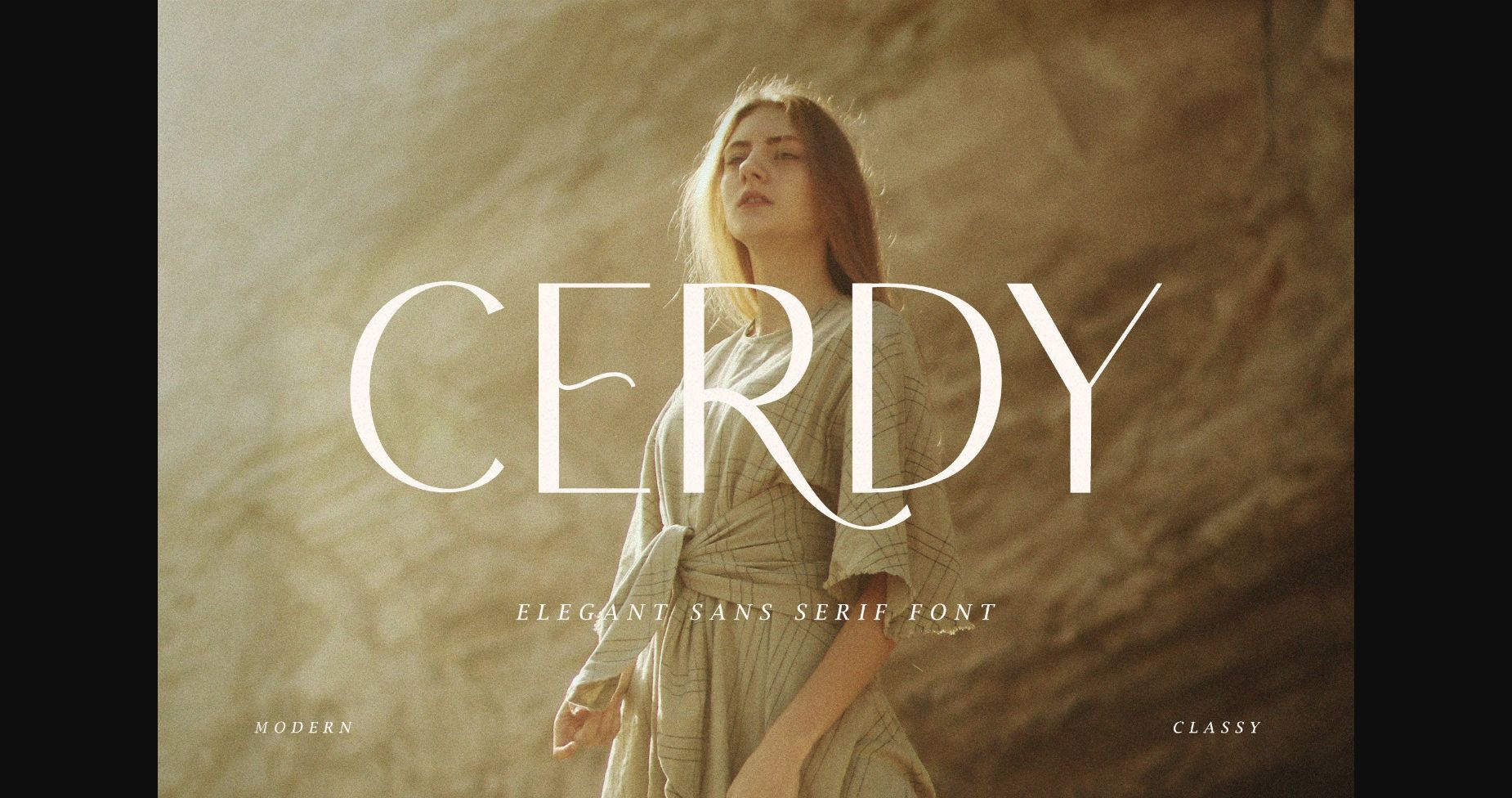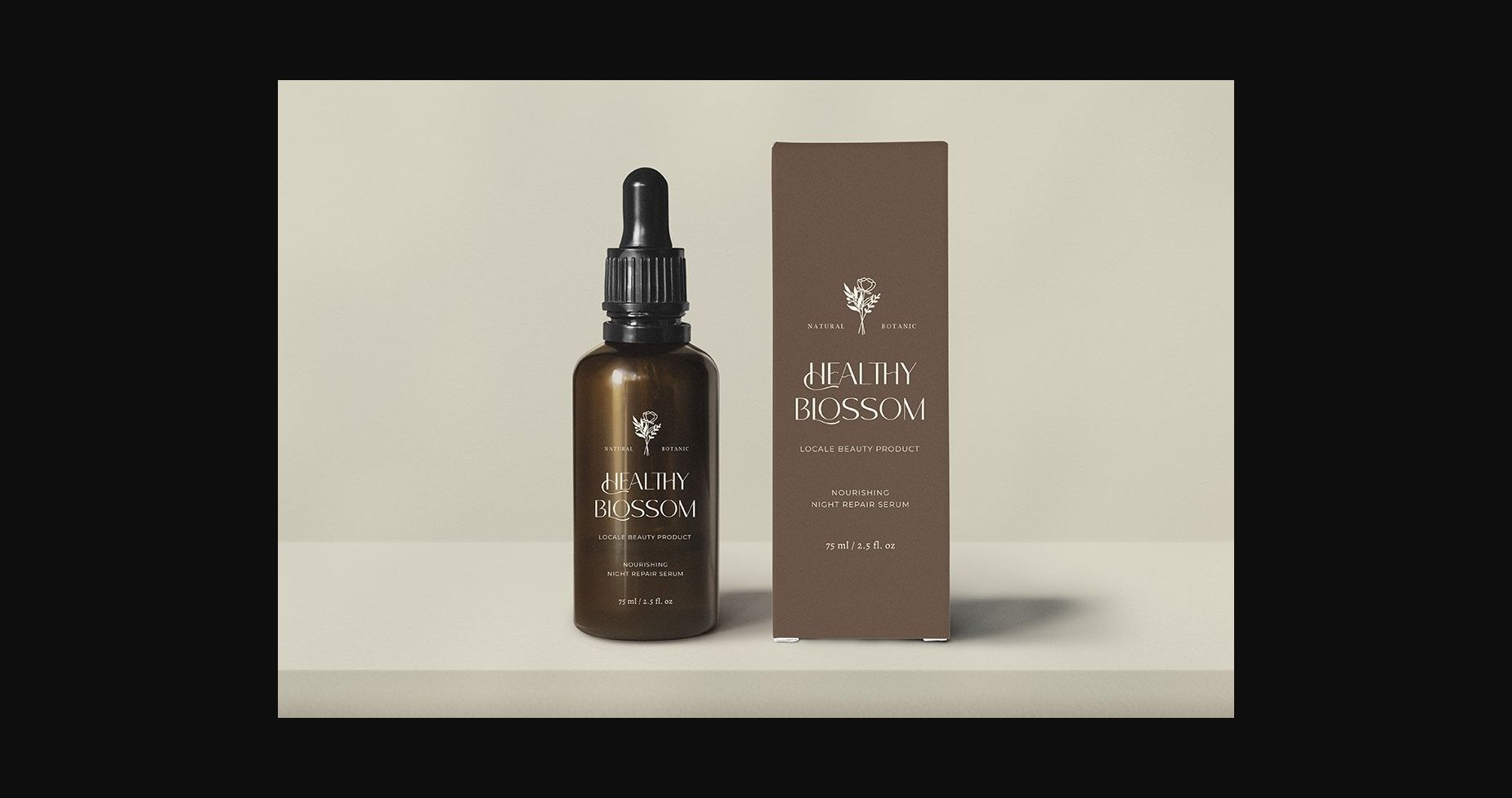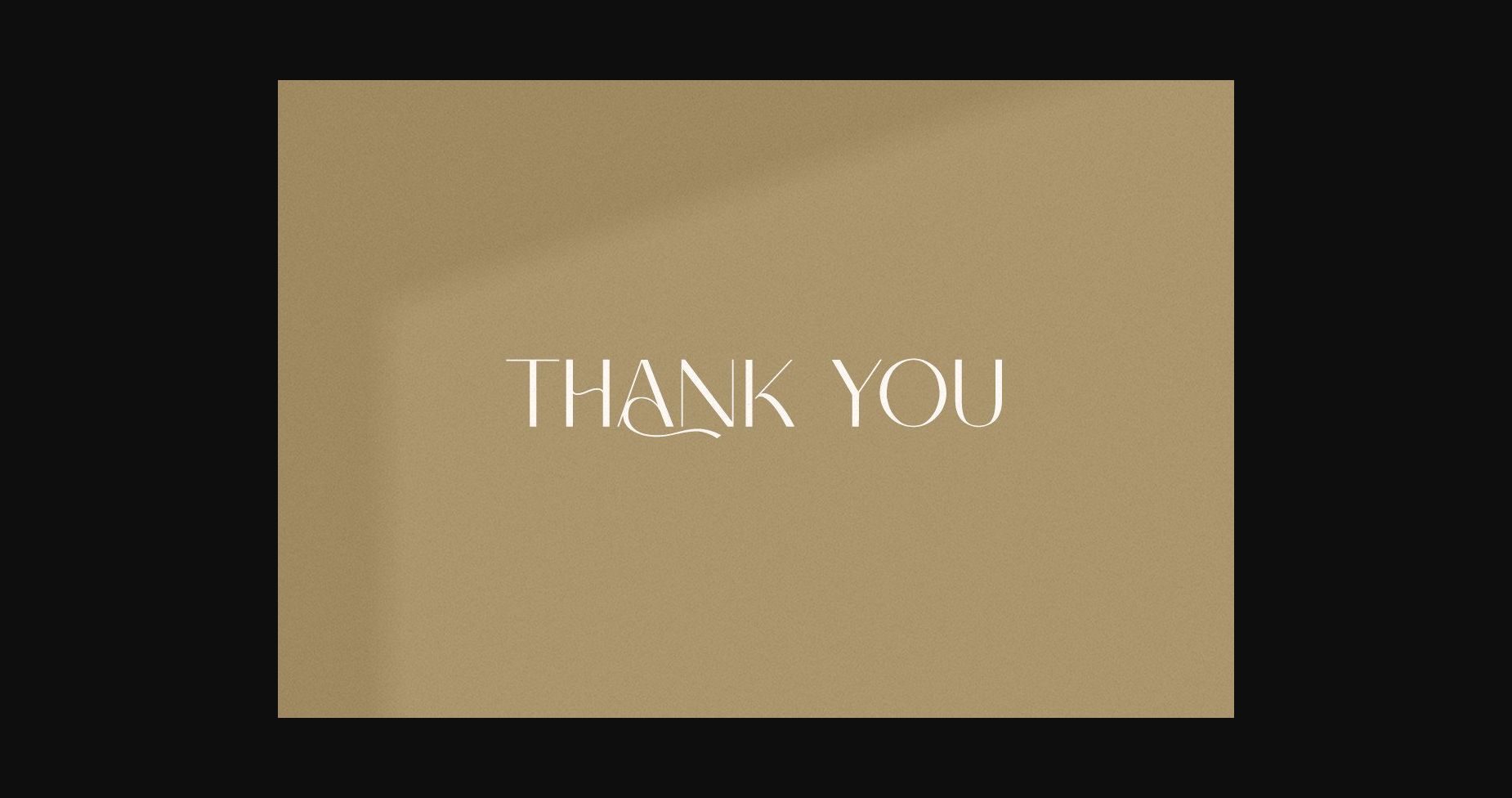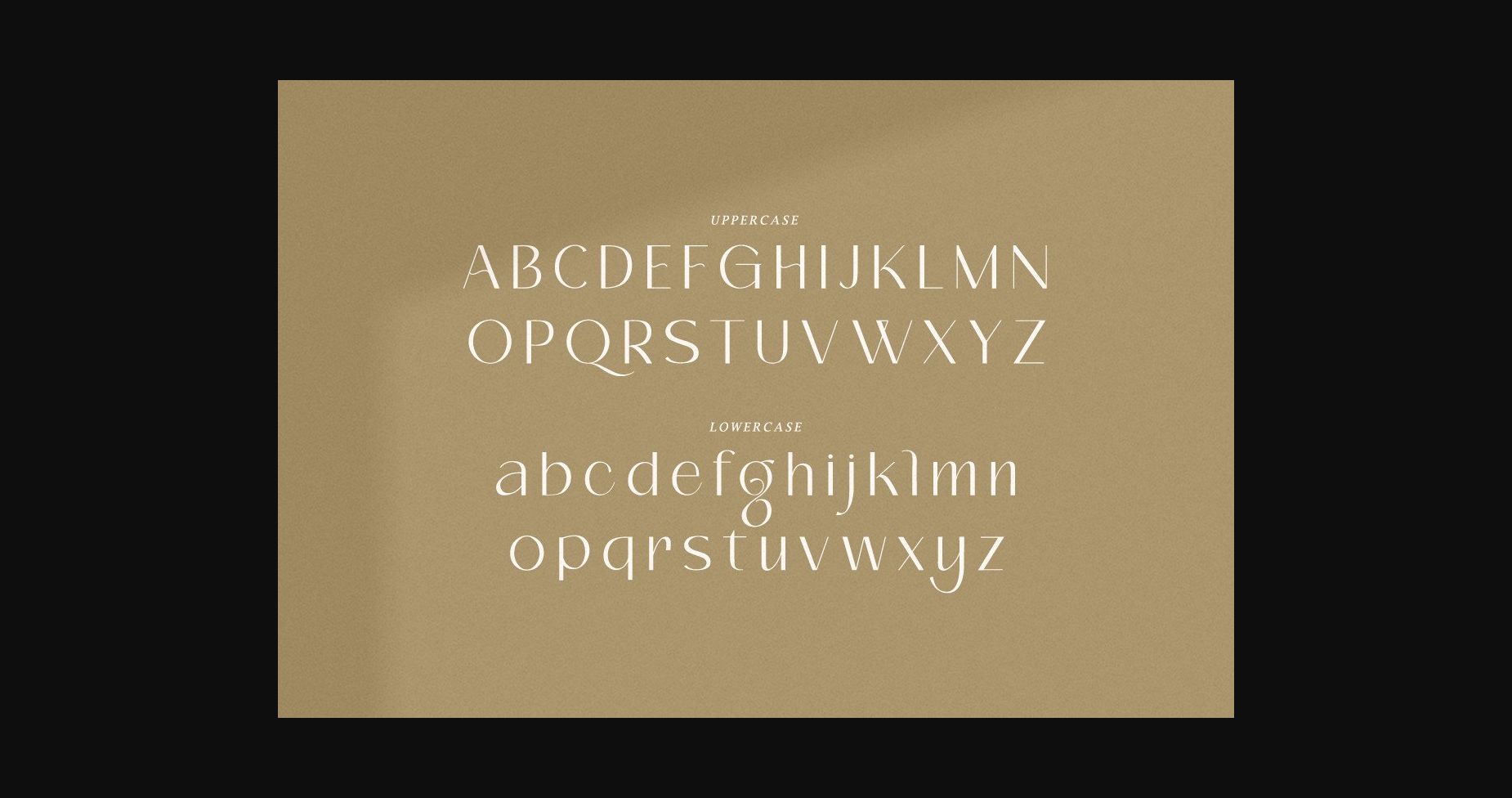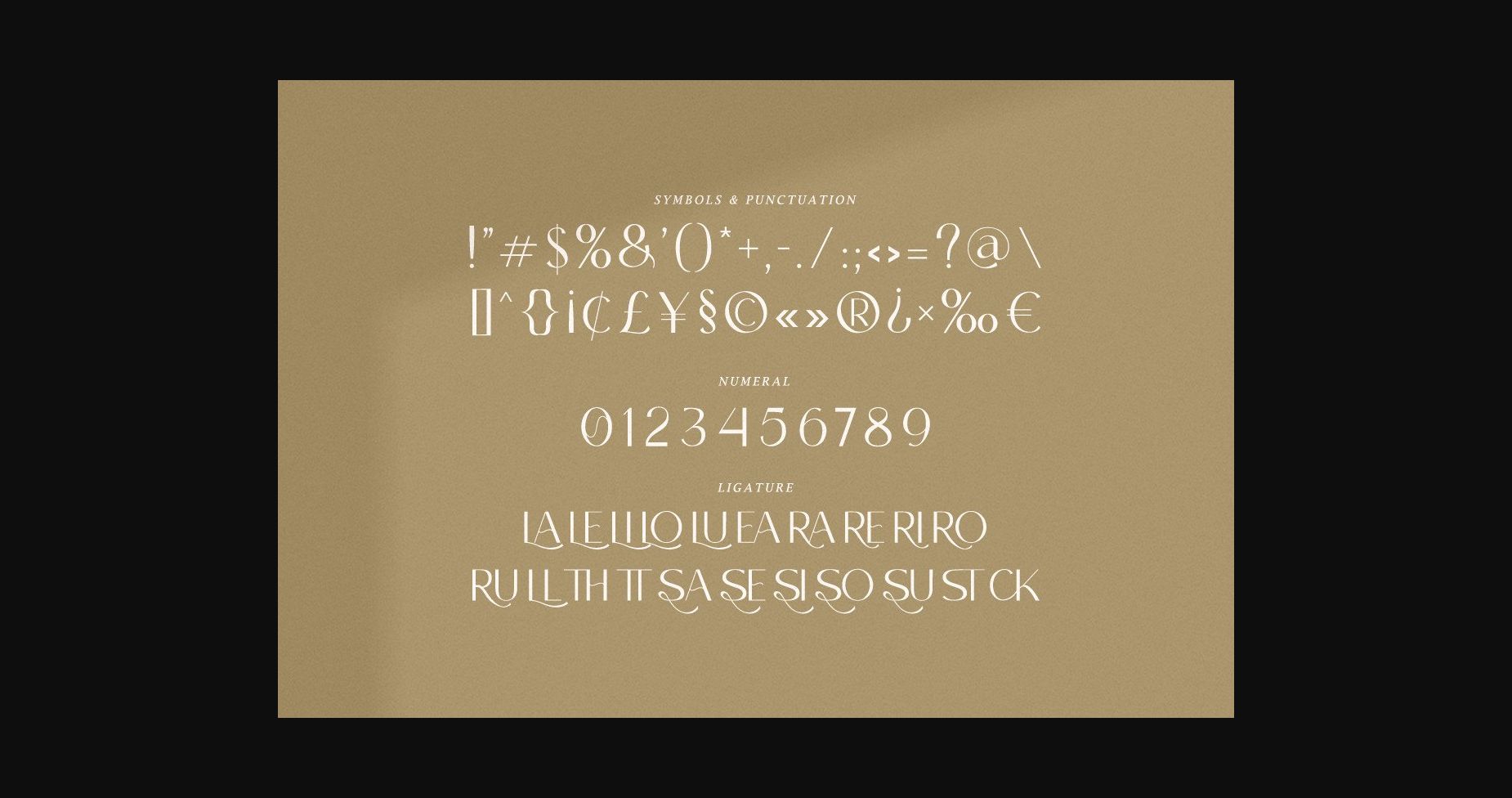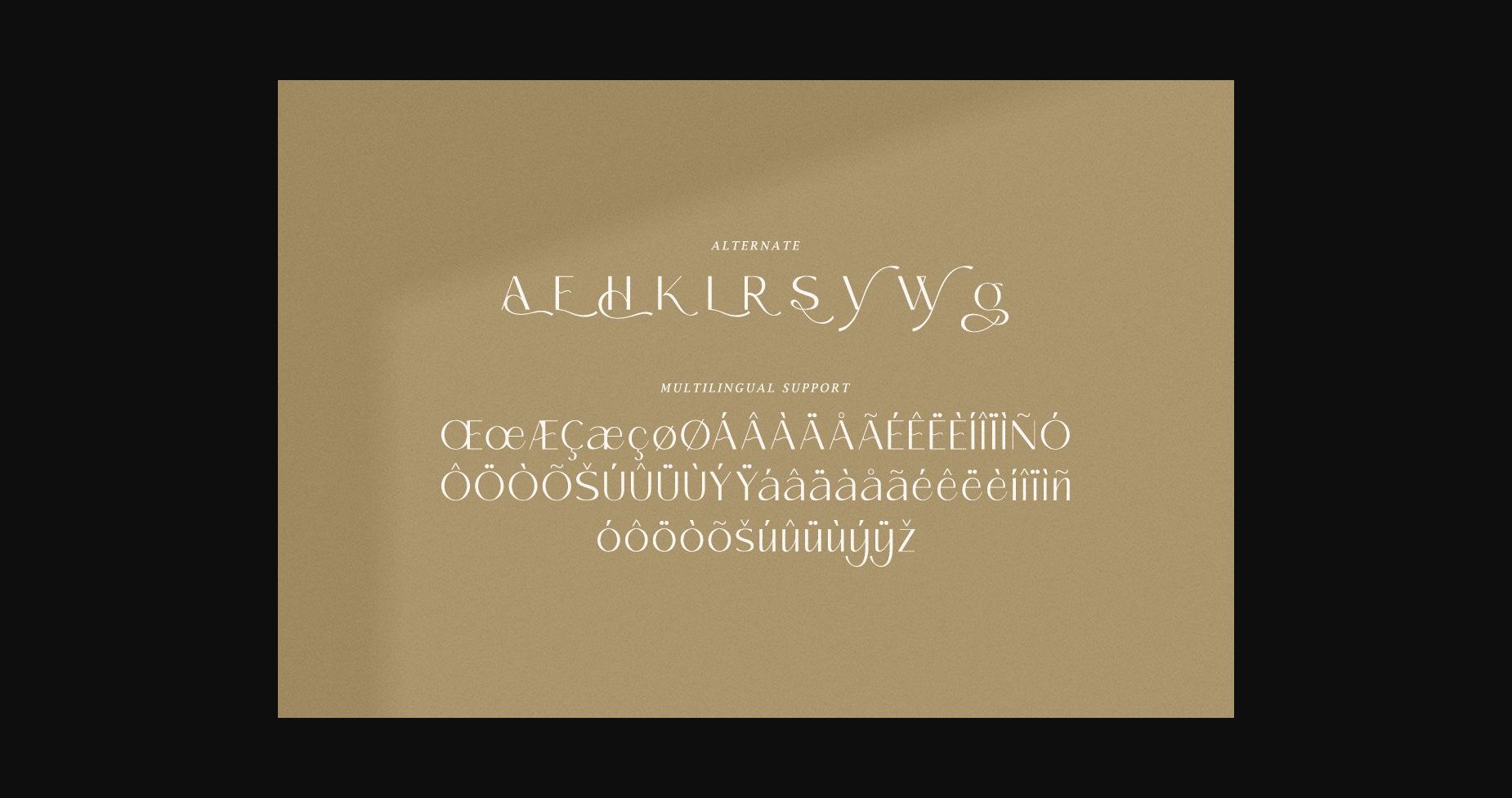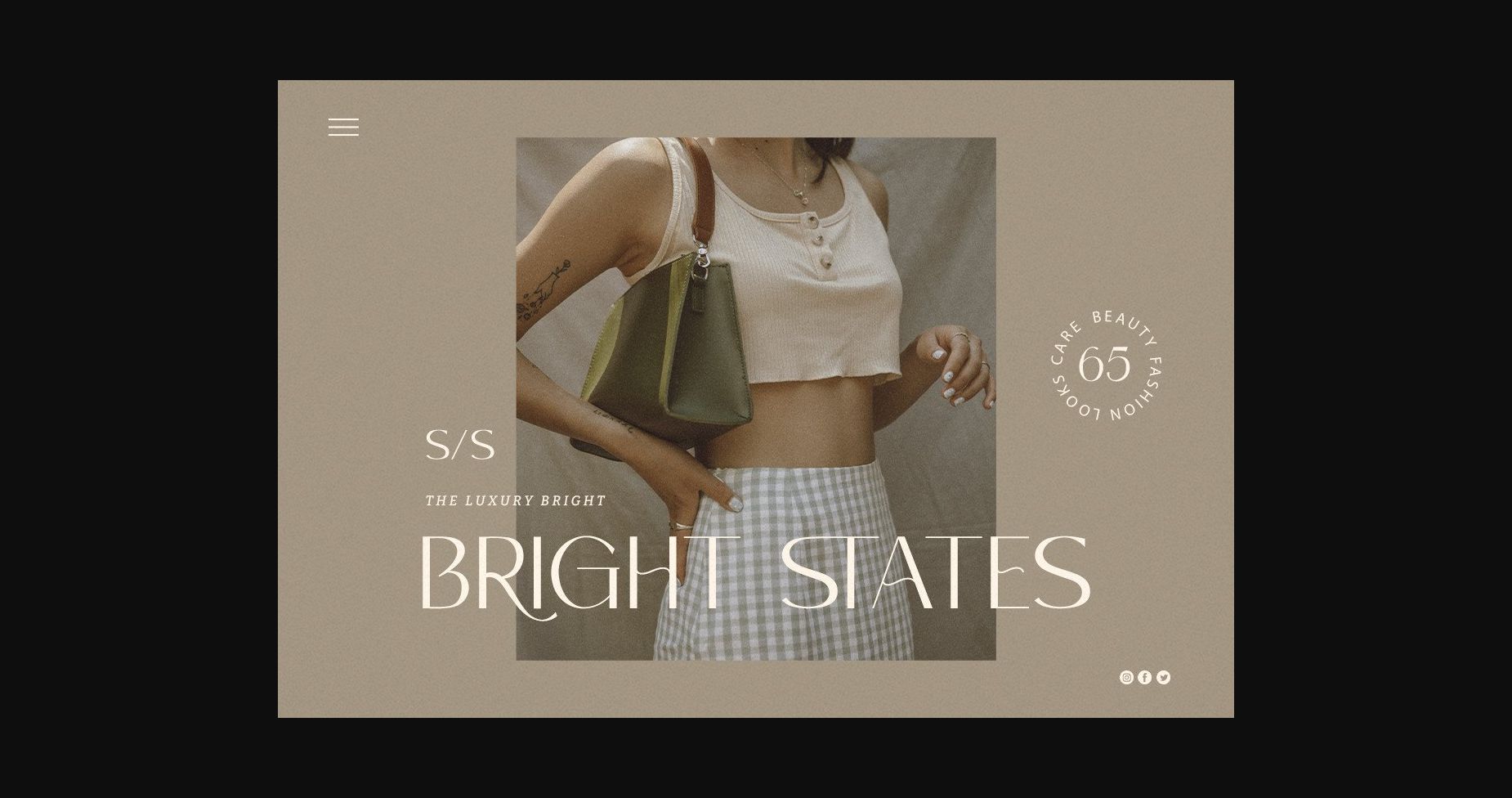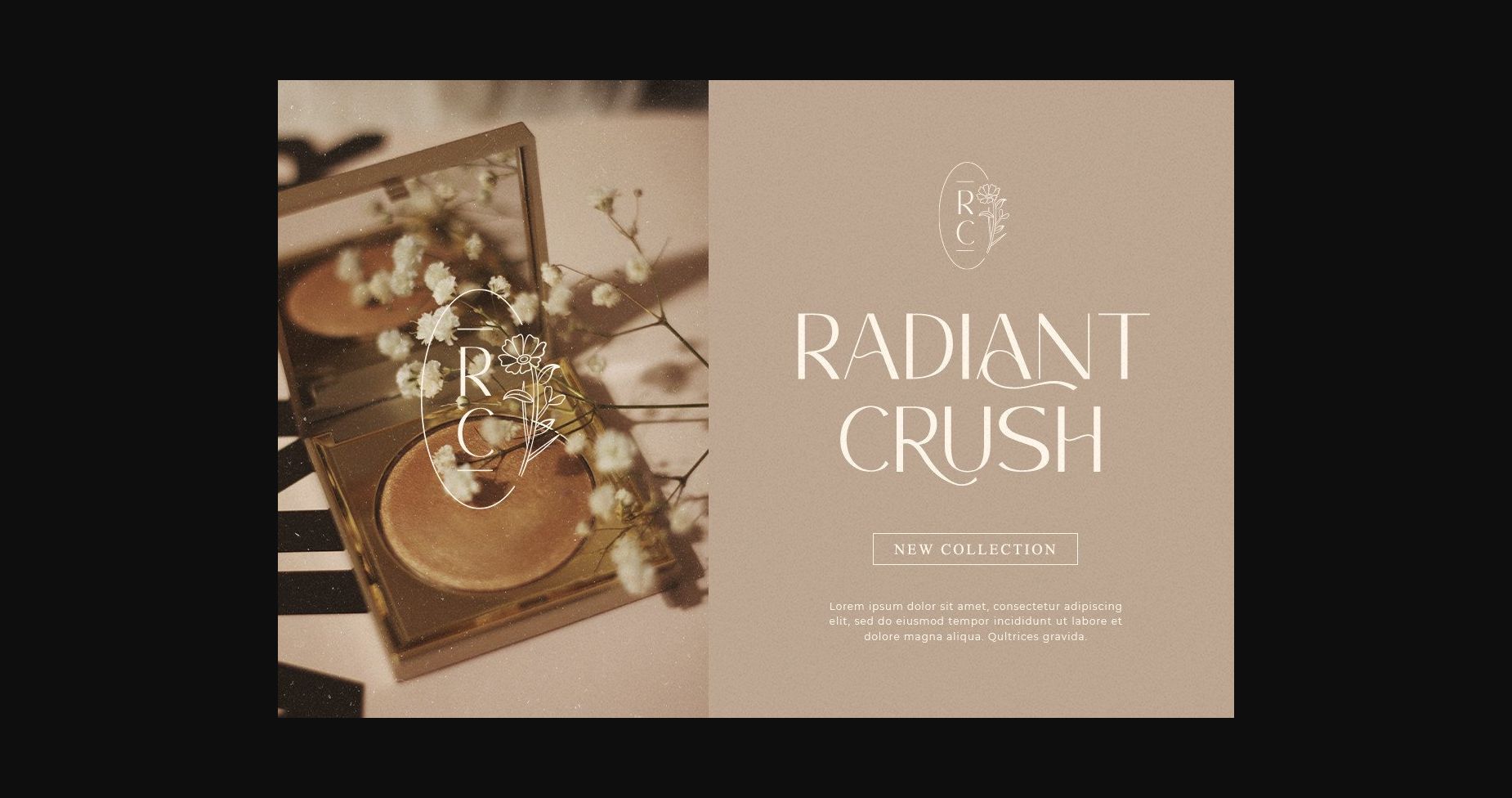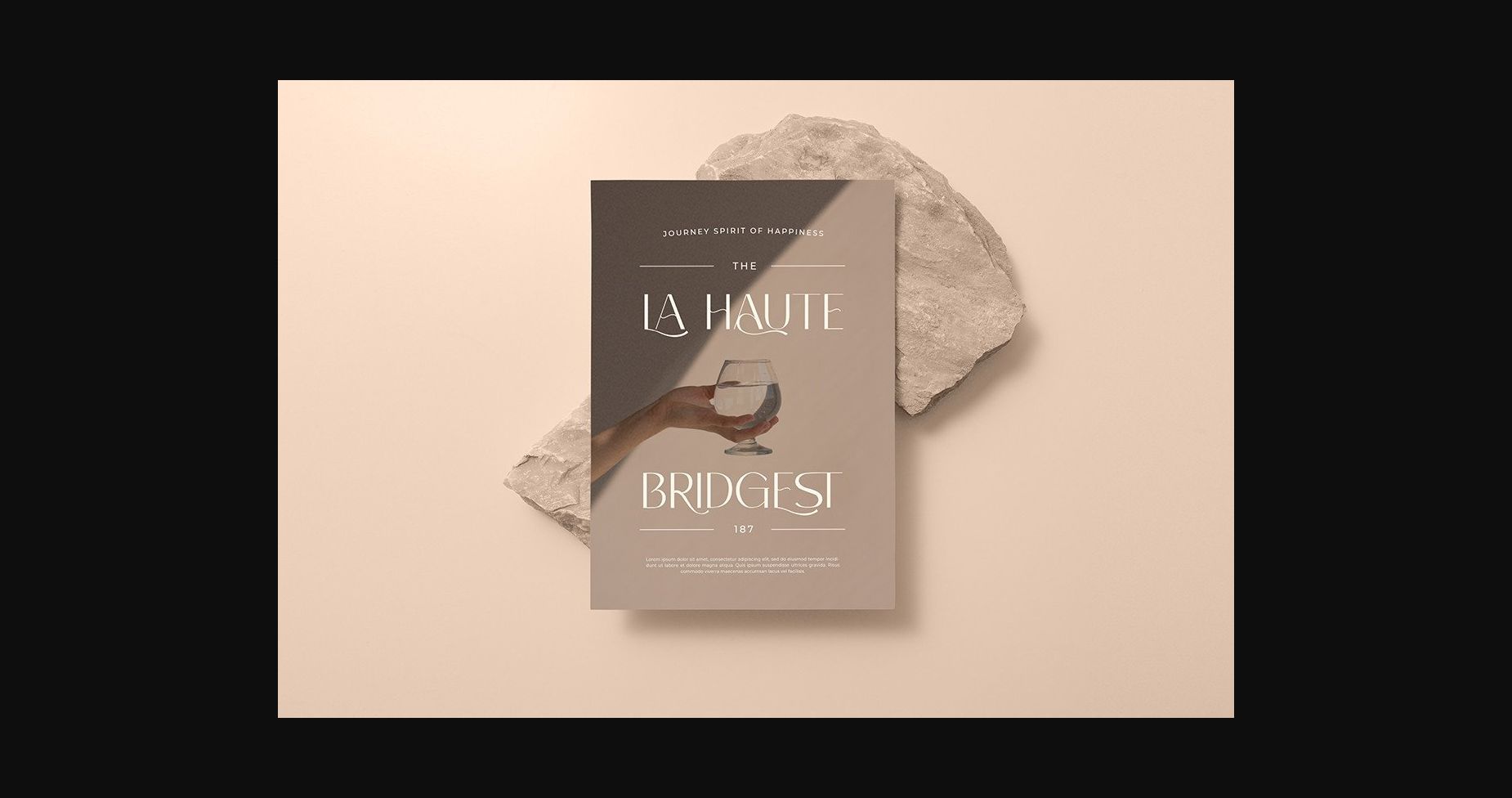
Cerdy Font
About Cerdy Font
Cerdy is an elegant and modern sans serif font.
No matter the topic, this font will be an incredible asset to your fonts library, as it has the potential to elevate any creation.